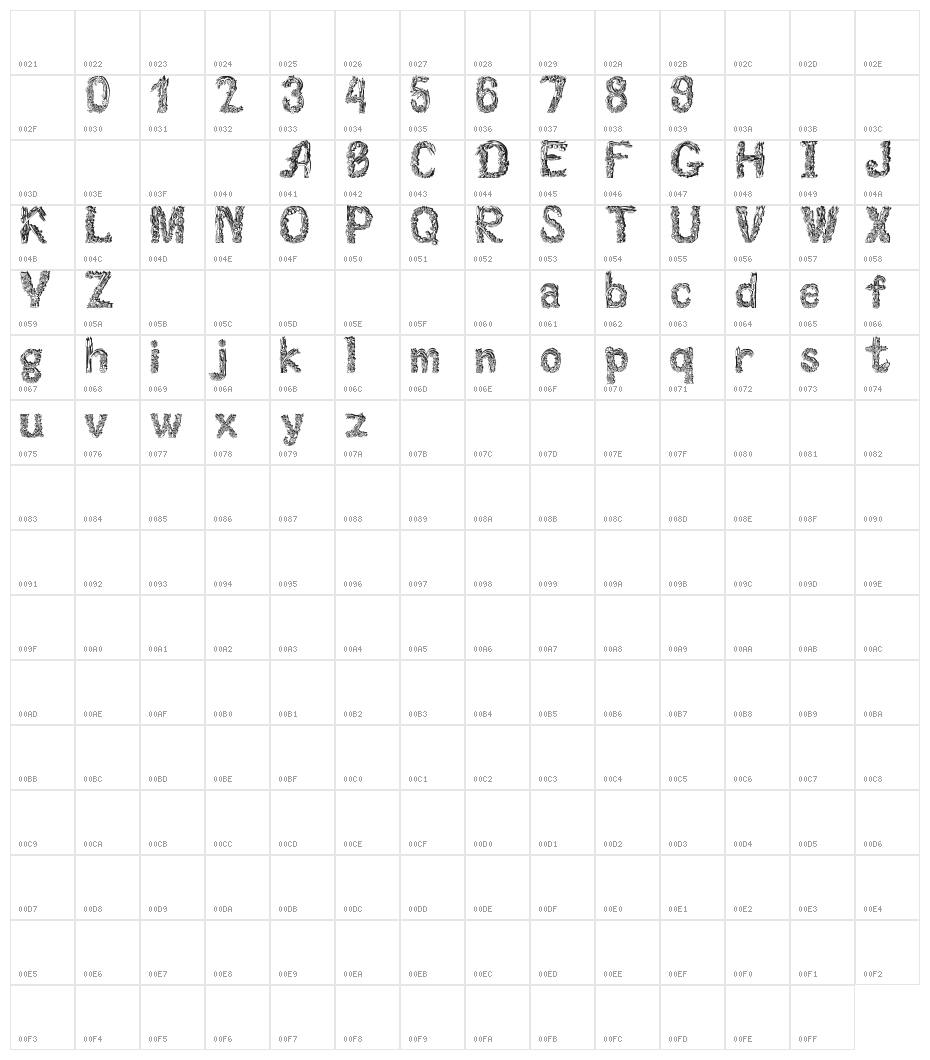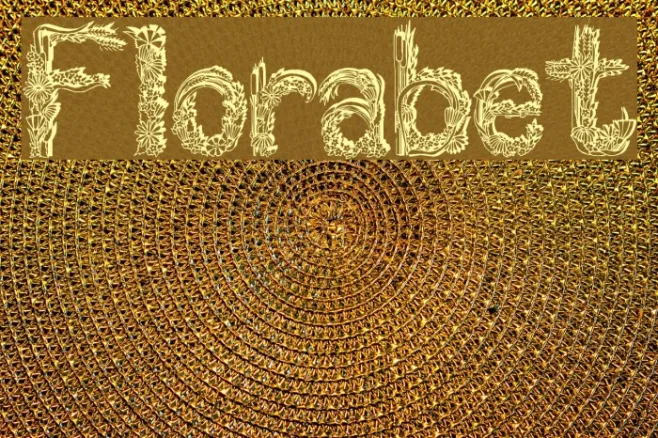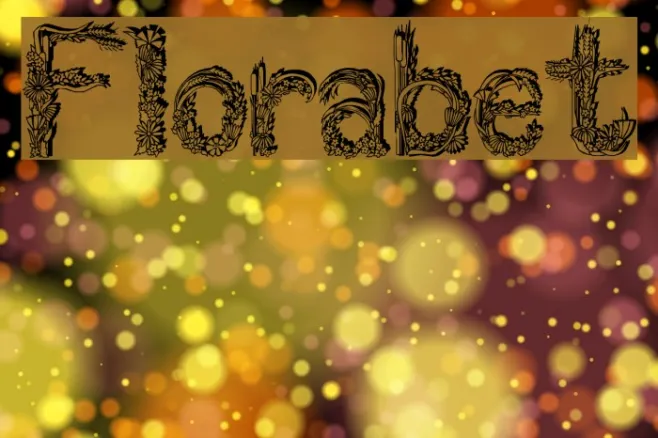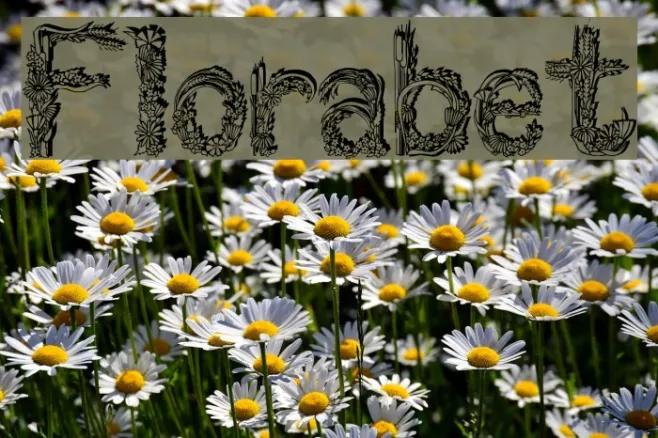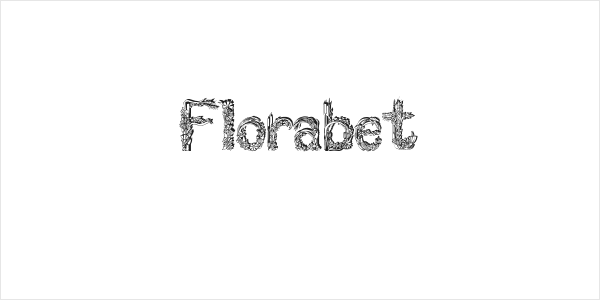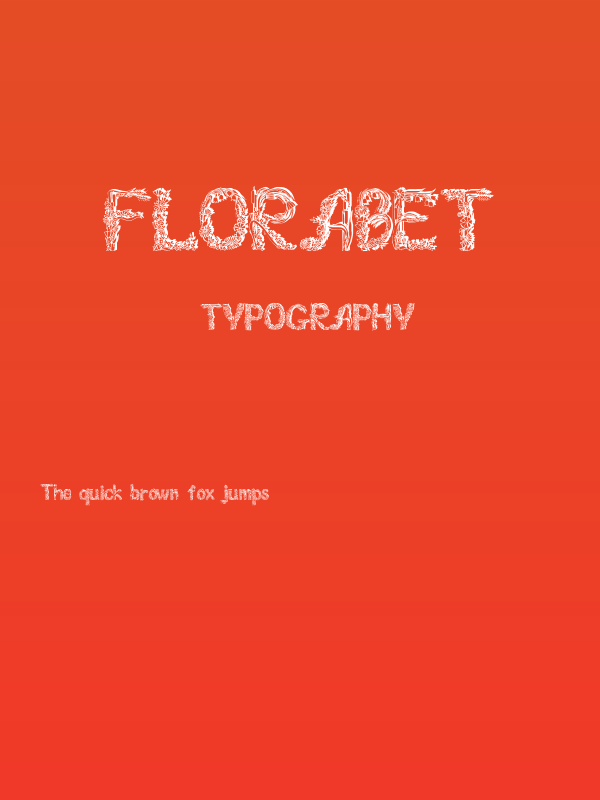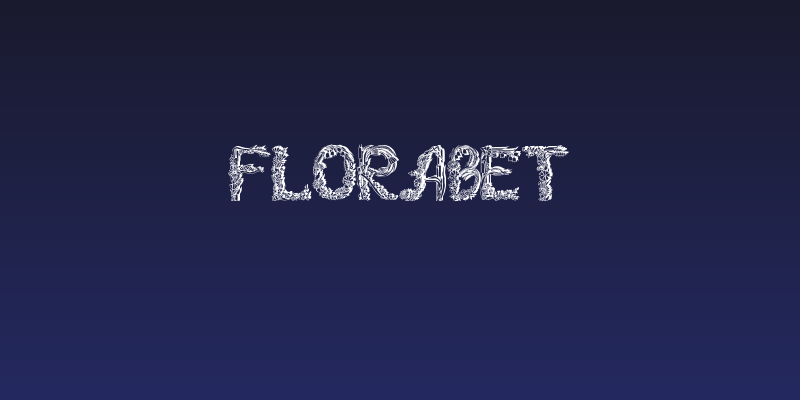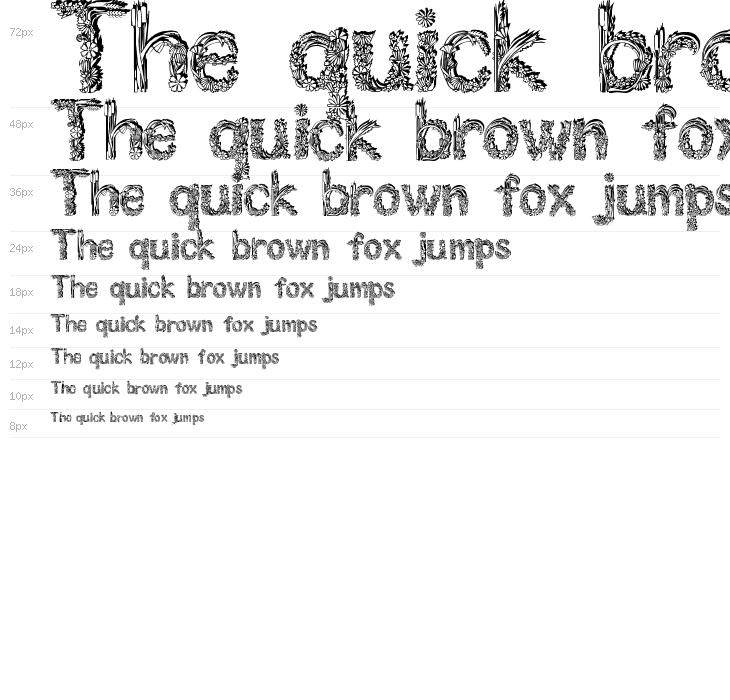
Florabet Font
Florabet Description
This font is a decorative and intricate design that incorporates floral elements into each character. The letters are adorned with detailed botanical motifs, giving them a unique and artistic appearance. The style is highly ornamental, with each character featuring a variety of floral patterns that intertwine and embellish the letterforms. This font is ideal for projects that require a touch of nature or an artistic flair, as it combines the elegance of floral designs with the functionality of a typeface. The overall look is both whimsical and sophisticated, making it suitable for creative and decorative applications.
| Proposed Projects | Ideal for wedding invitations, greeting cards, botanical-themed branding, and artistic posters. |